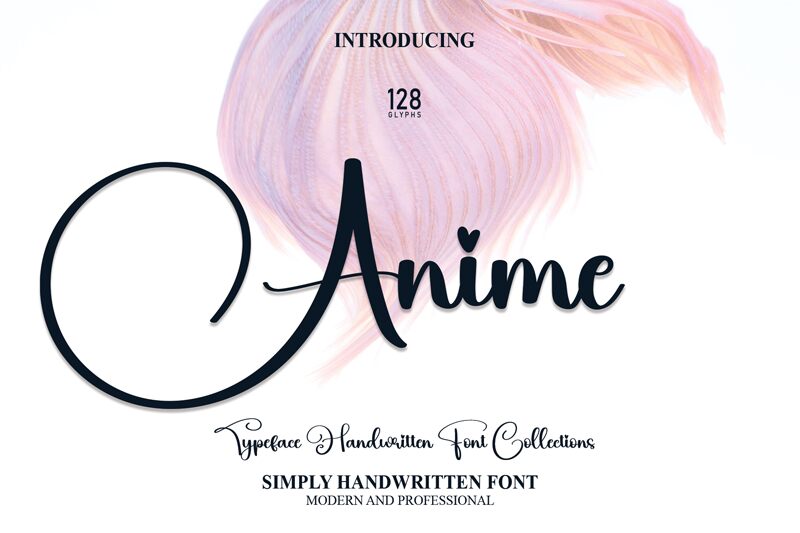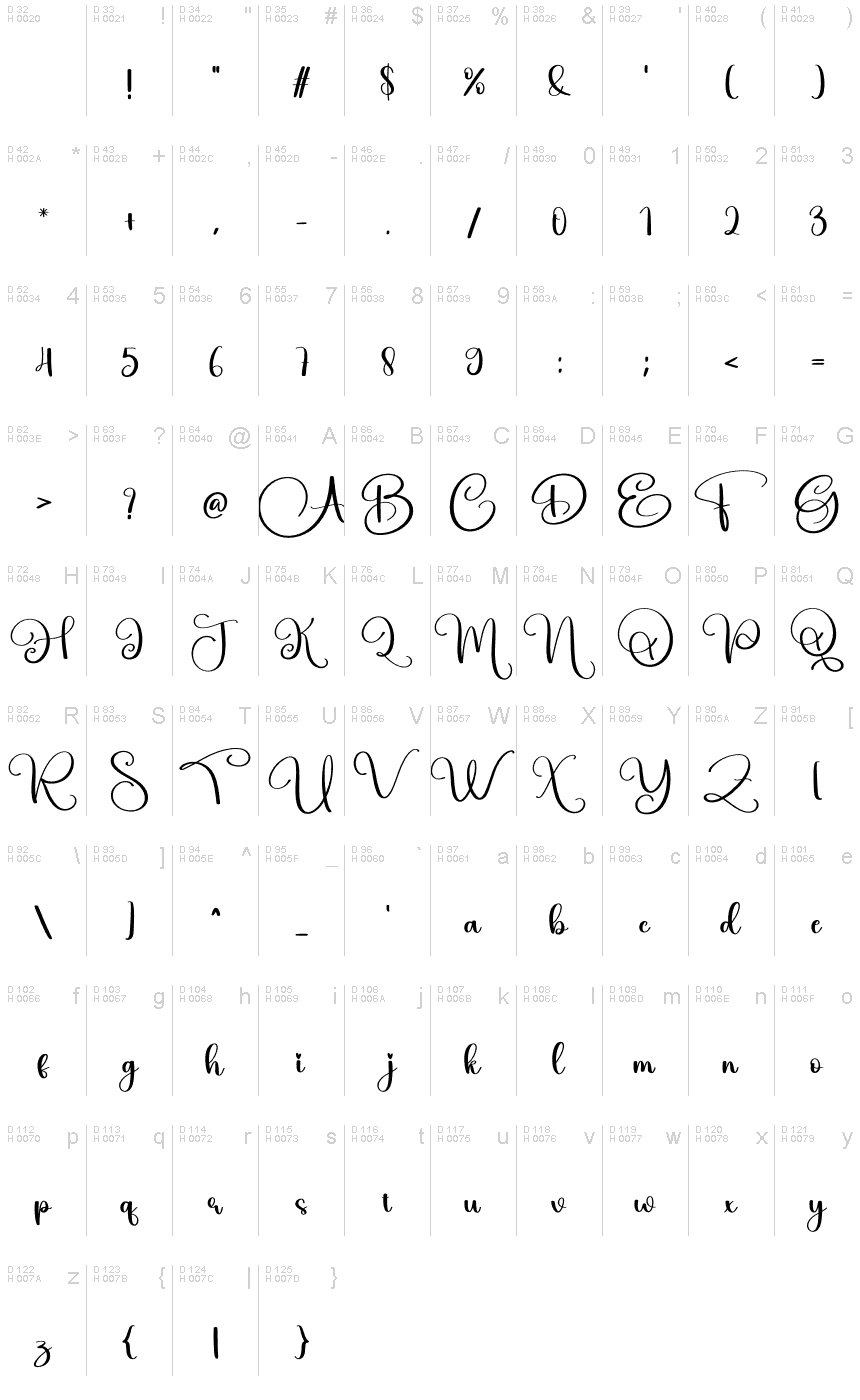
Introducing Anime, a mesmerizing calligraphy font designed by scratchones. With its semi-light weight, Anime exudes elegance and grace, making it perfect for projects that demand a touch of sophistication. Its flowing strokes and intricate curves bring life to wedding invitations, luxury branding, and fashion magazines. Add a touch of whimsy to your product packaging or create eye-catching social media posts with this versatile font. Whether you're designing a logo for a high-end boutique or crafting personalized stationery, Anime will captivate your audience with its enchanting charm. Elevate your designs with the magical allure of Anime!
the latest style letters are perfect for wall displays, wedding invitations, social media post logos, advertisements, product packaging, product designs, labels, photography, watermarks, invitations, stationery, and any project that requires taste handwriting.